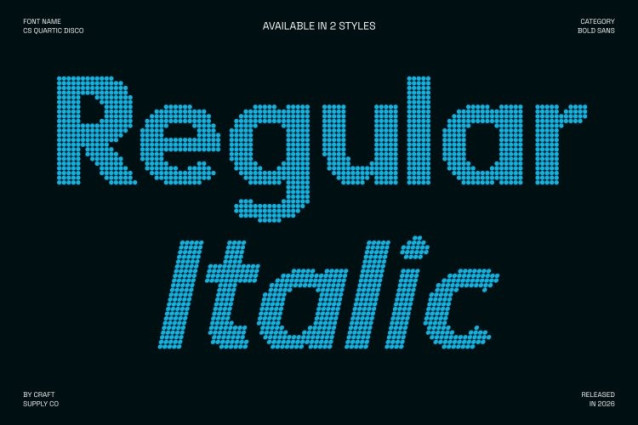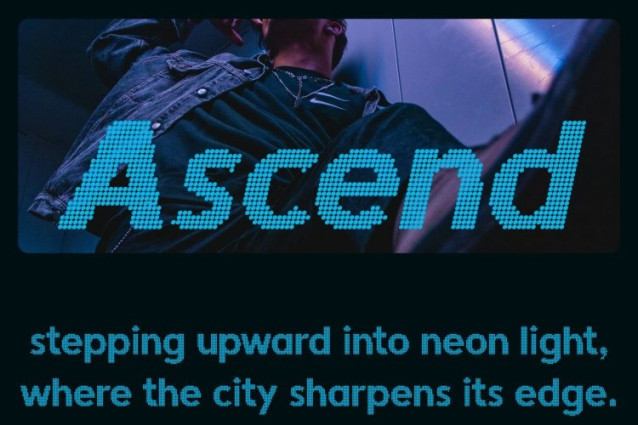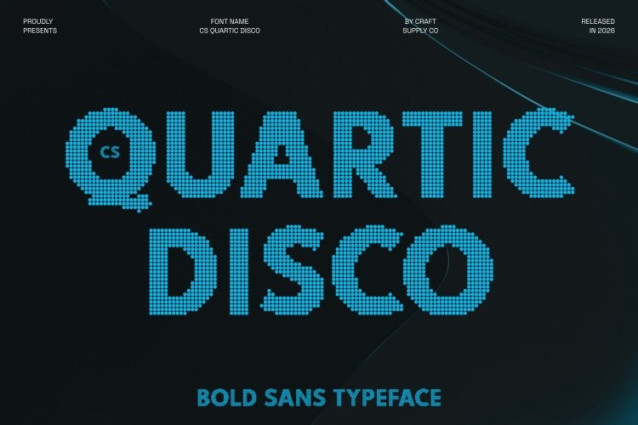
CS Quartic Disco Font
CS Quartic Disco Font is a bold modern sans serif display font built with strong, clean geometry and confident proportions, now enhanced with a vibrant disco-inspired dotted texture. Its solid construction delivers clarity and visual impact, while the sparkling dot pattern introduces rhythm and playful energy. The result is typography that feels powerful, modern, and visually dynamic.
Modern Structure with Lively Character
Grounded in contemporary sans serif design, this font adds subtle quirks and expressive details that give the font a distinctive personality. The dotted disco texture amplifies this character, creating a lively visual layer that brings movement and brightness to every letter without sacrificing readability.
Perfect for Headlines, Posters, and Bold Branding
Designed for high-visibility display use, this font excels in headlines, posters, event graphics, branding systems, and social media visuals. Its bold forms ensure strong legibility, while the shimmering dotted style transforms text into an eye-catching focal point.
Made for Designers Who Want to Stand Out
This is crafted for creatives who seek typography that feels modern, confident, and unconventional. Its combination of geometric strength and sparkling disco detail ensures every message stands out with clarity, personality, and unmistakable style.